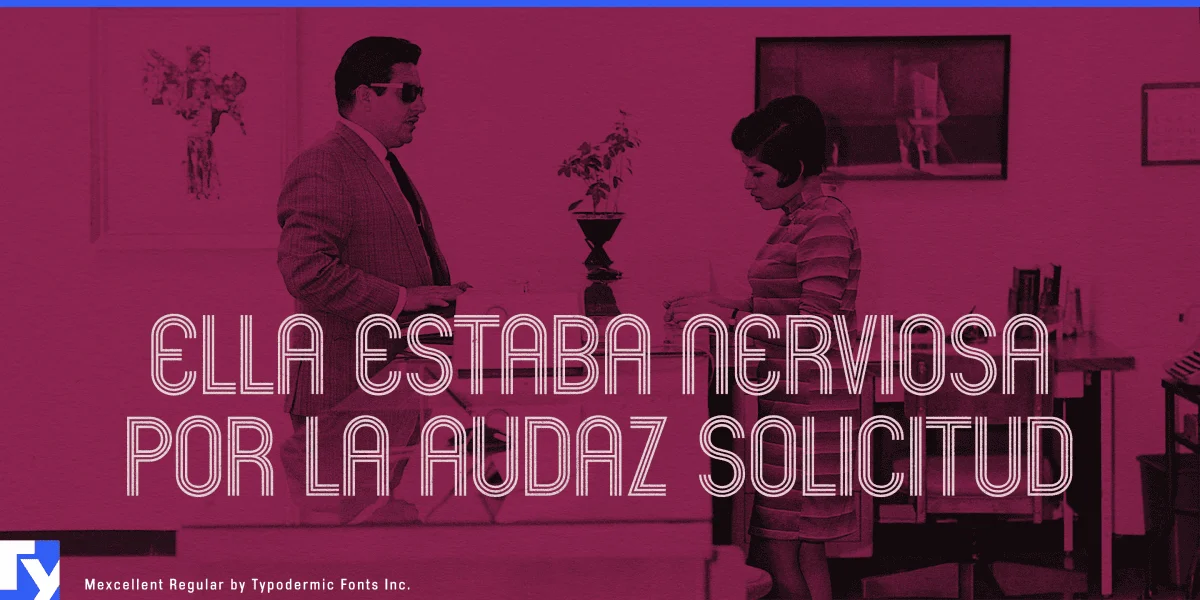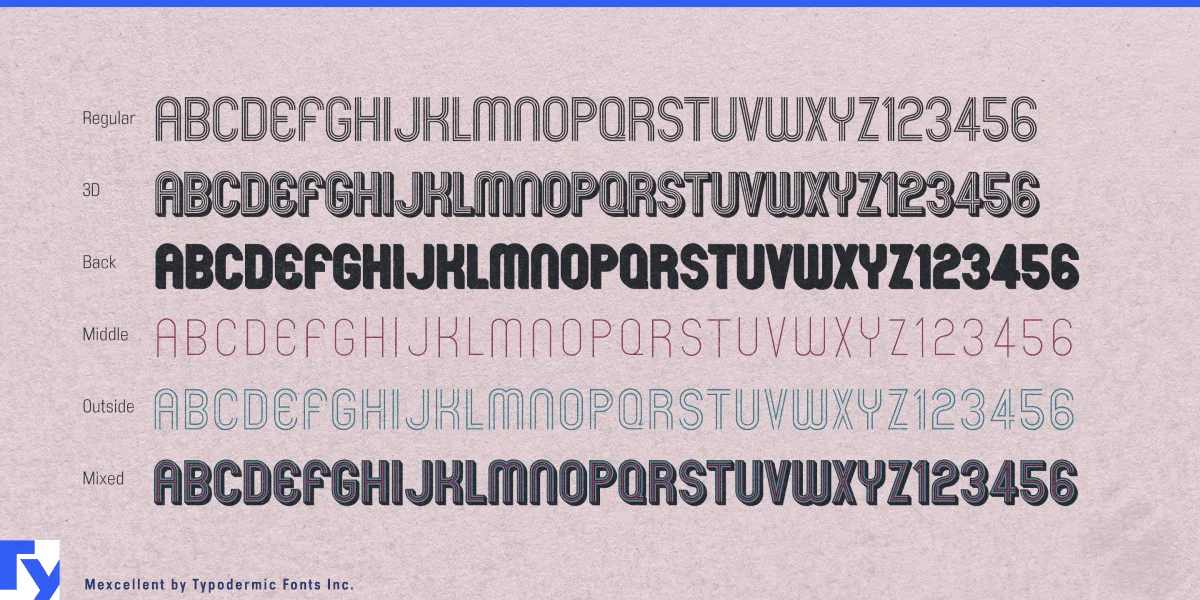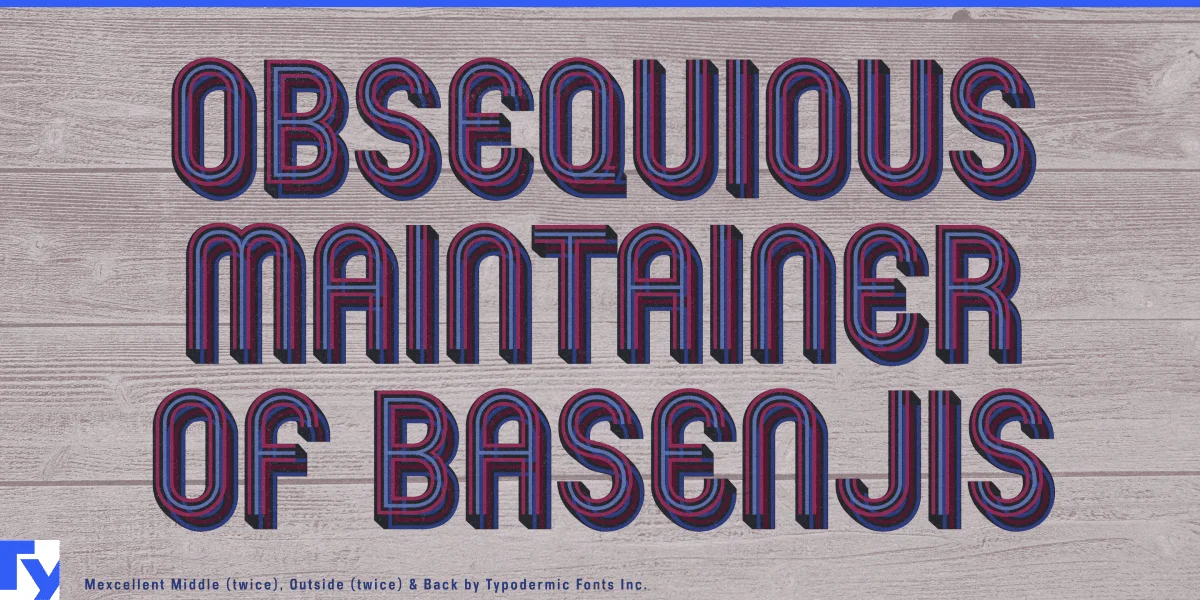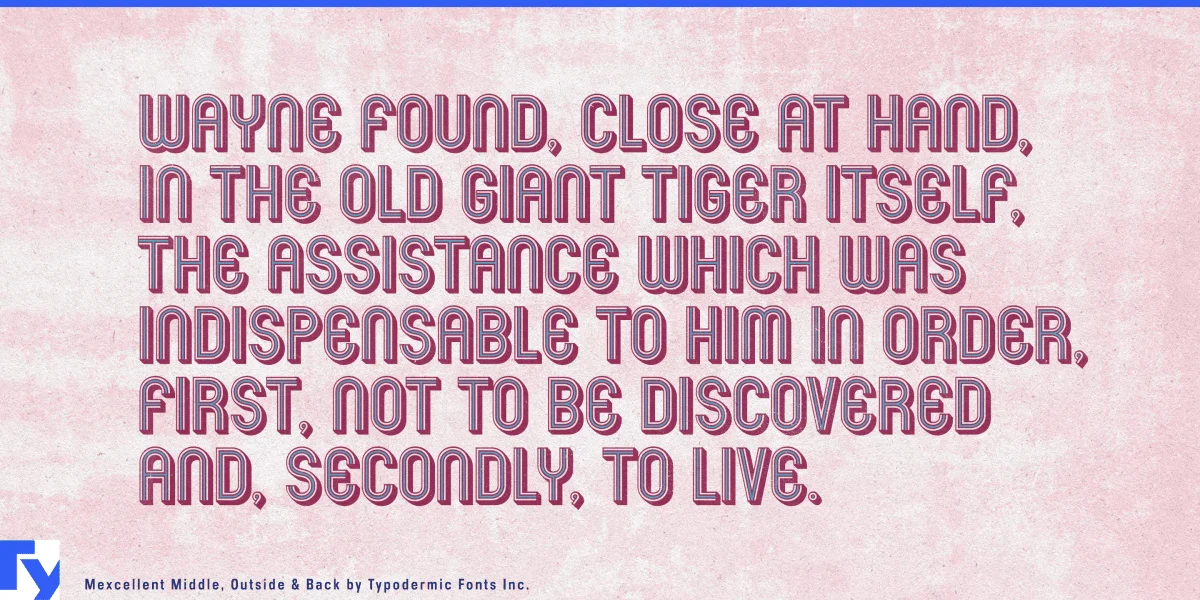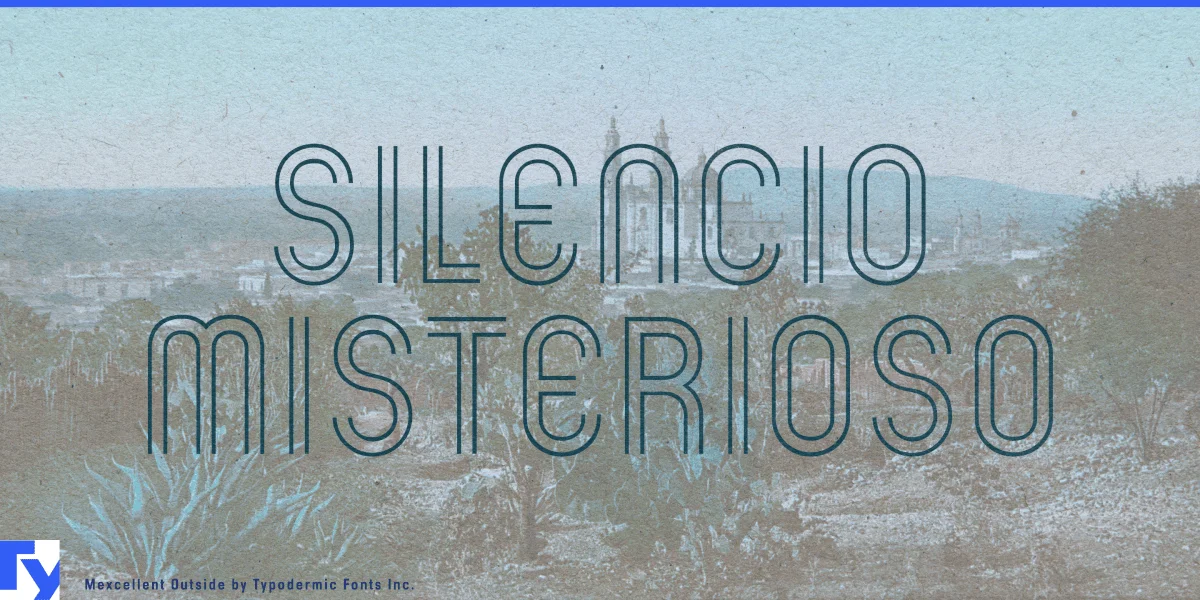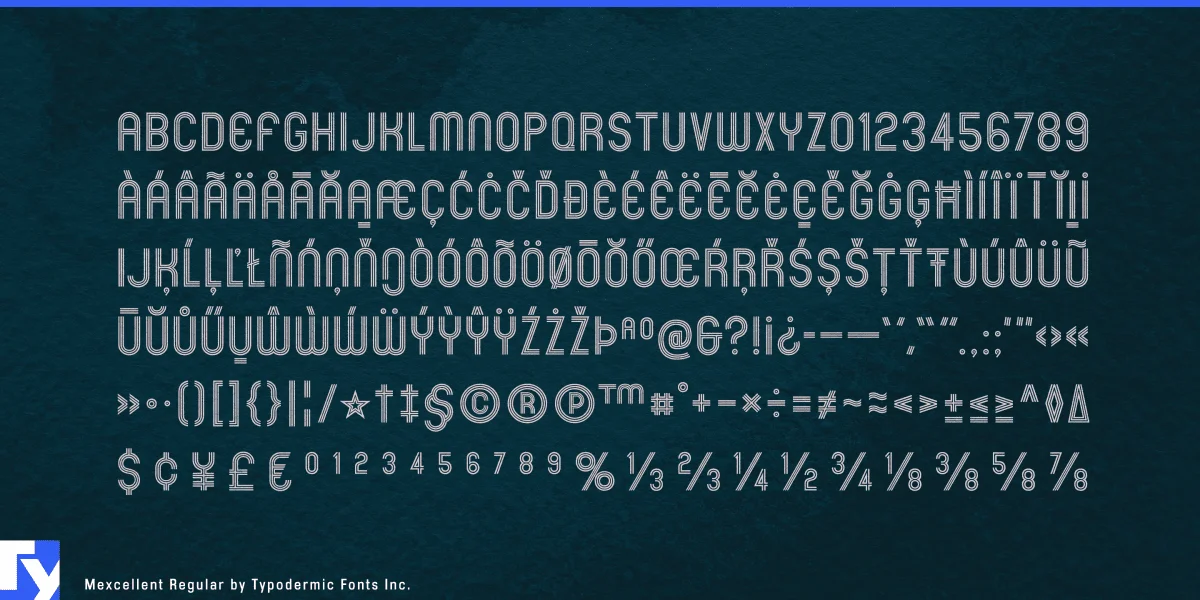
Step onto the global stage with Mexcellent, a tri-linear stripe typeface that captures the spirit of athletic triumph and international unity. Born from the legacy of the groundbreaking 1968 Mexico City Olympic Games, Mexcellent doesn’t just participate—it takes home the gold in visual impact and design versatility.
Like a world-class decathlete, Mexcellent excels across multiple disciplines. Its layered design allows for a podium-worthy array of color combinations, giving designers the freedom to create visual spectacles worthy of an opening ceremony. Each character stands as a testament to the harmony of form and function, its cool stripes and dynamic angles reminiscent of track lanes and victory podiums.
Mexcellent doesn’t just compete—it revolutionizes the game. Whether you’re crafting event posters that demand attention like a starting pistol or designing social media graphics that spread faster than Olympic fever, this typeface ensures your message breaks records for engagement and memorability. Its unique style isn’t just eye-catching; it’s a visual anthem that resonates across cultures, much like the Olympic rings themselves. This linguistic champion speaks fluently in a marathon of languages, from Afrikaans to Zuni. It sprints effortlessly across European writing systems, ensuring your message maintains its winning form whether it’s displayed in Stockholm or Sarajevo. Mexcellent doesn’t just cross finish lines; it crosses borders, uniting diverse audiences under the banner of striking typography.
Don’t settle for silver when your designs can take gold. Choose Mexcellent and watch as your projects ascend the podium of public attention. So take your mark, set your designs, and let Mexcellent propel your creativity to Olympic heights.